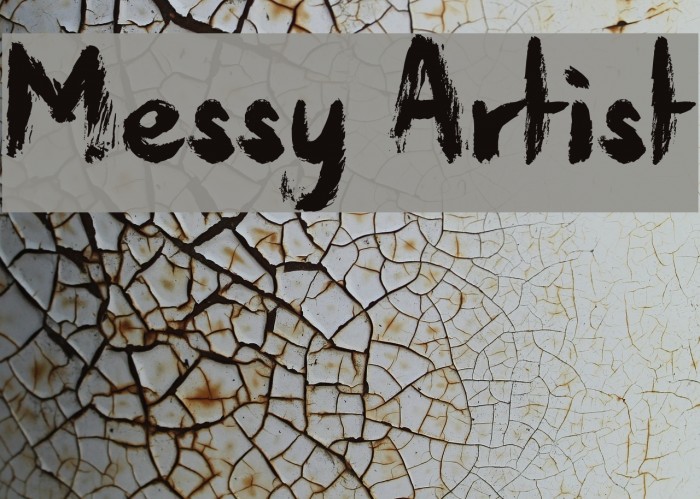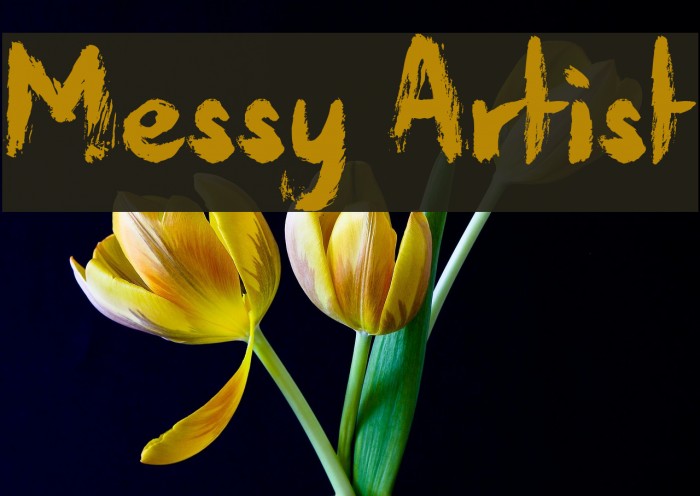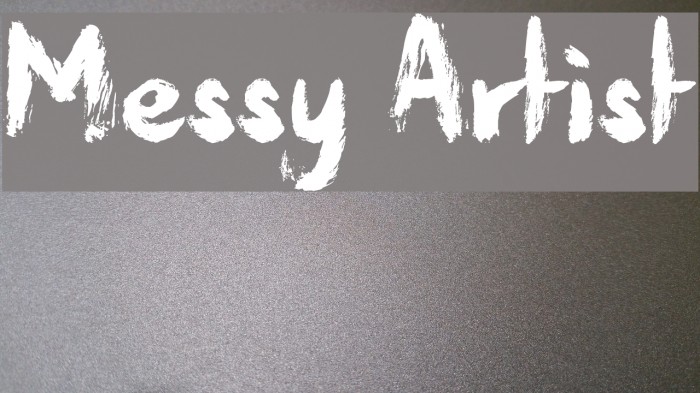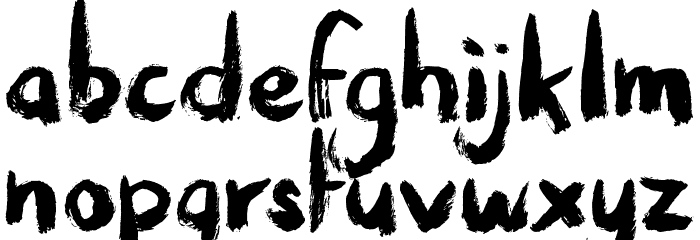
Messy Artist Font
Messy Artist Description
This font features a bold, expressive style with brush-like strokes that give it a raw and artistic feel. The characters are uneven and dynamic, creating a sense of movement and energy. The uppercase and lowercase letters maintain a consistent style, with rough edges and varying thicknesses that mimic the look of hand-painted letters. The numbers and special characters follow the same aesthetic, adding to the font's cohesive appearance. This font is ideal for projects that require a bold, artistic touch, such as posters, album covers, or creative branding.
| Overall Style | Artistic, Expressive |
| Use Case | Headlines, Logos, Artistic projects |
| Proposed Projects | Ideal for posters, album covers, creative branding, and artistic projects. |